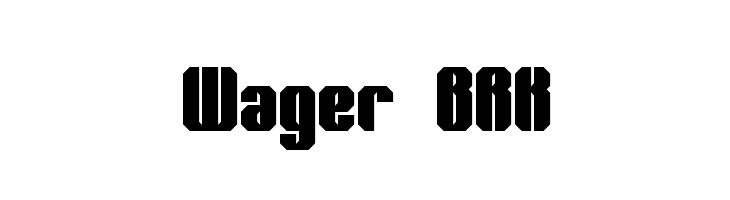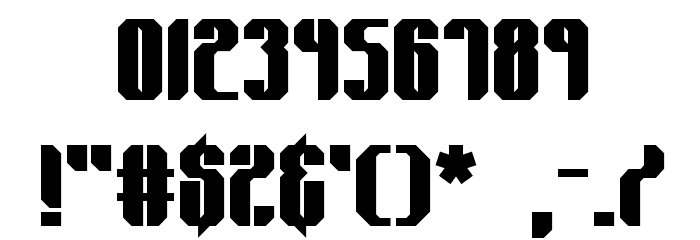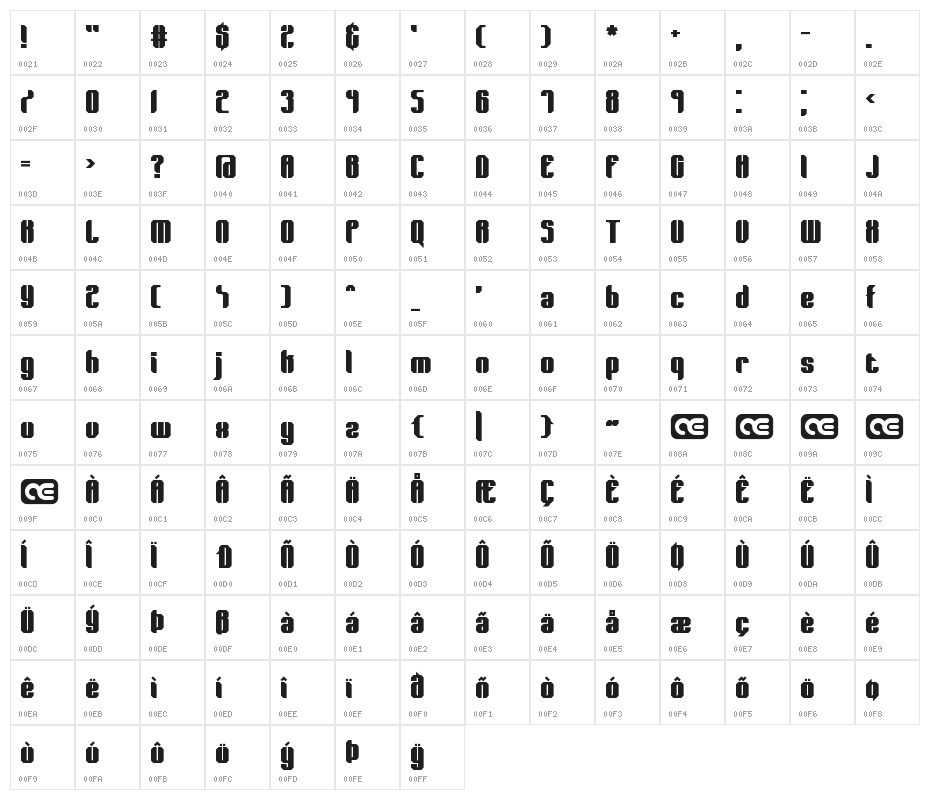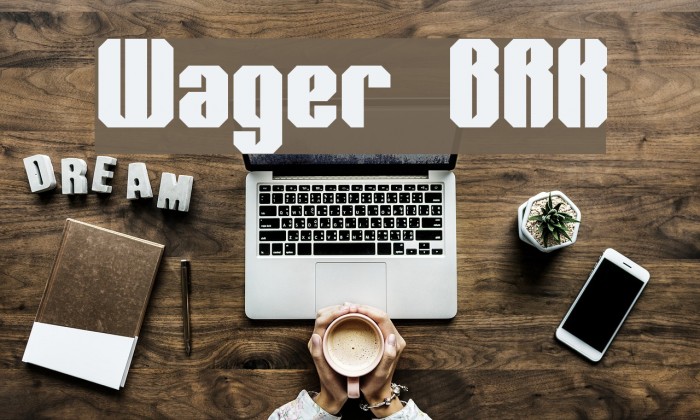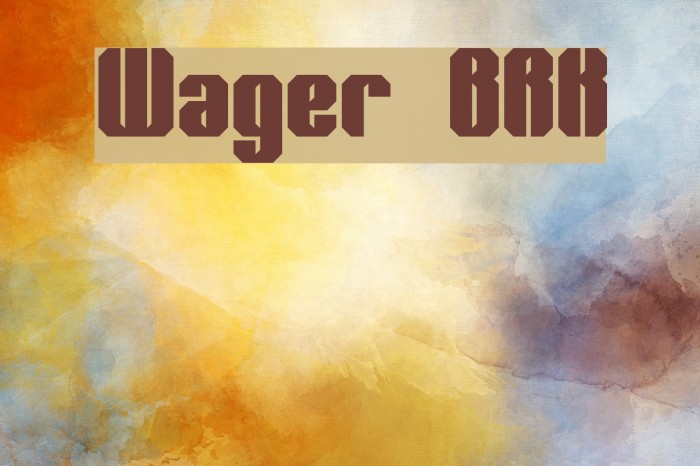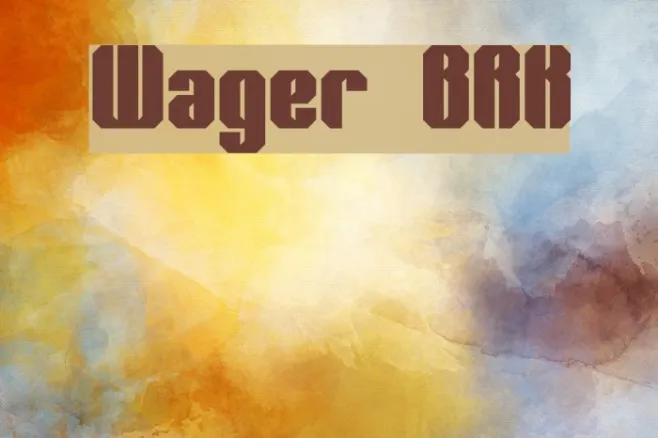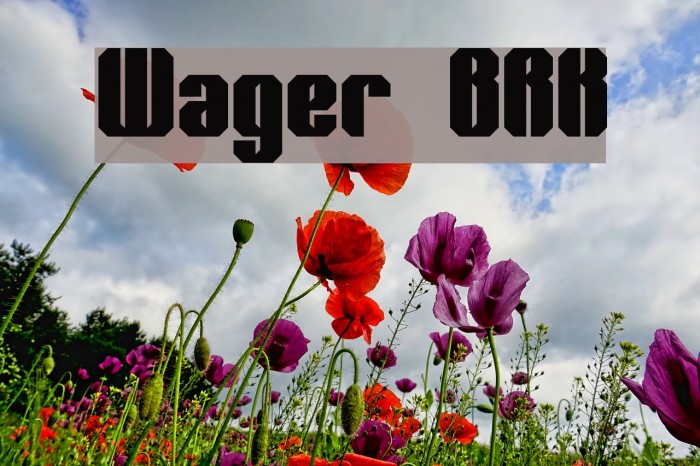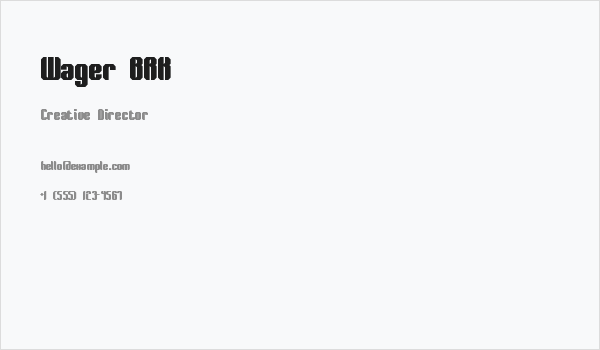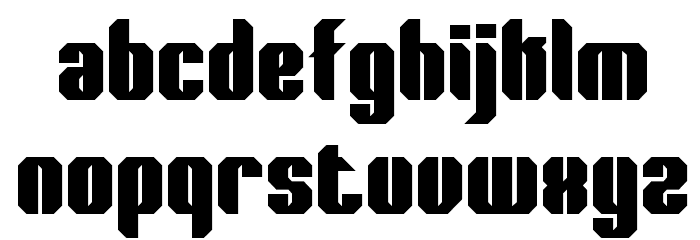
Wager BRK Font
Wager BRK Description
This font features a bold, geometric design with sharp angles and a strong presence. The uppercase letters are particularly striking, with a blocky, almost stencil-like appearance that commands attention. The lowercase letters maintain the same boldness, ensuring consistency across text. Numbers and special characters are equally robust, making them suitable for impactful displays. The overall aesthetic is reminiscent of industrial or futuristic styles, with a hint of retro influence. This font is ideal for projects that require a strong visual impact, such as posters, logos, or headlines.
| Overall Style | Futuristic, Industrial |
| Proposed Projects | Ideal for posters, logos, headlines, and any design requiring a bold statement. |